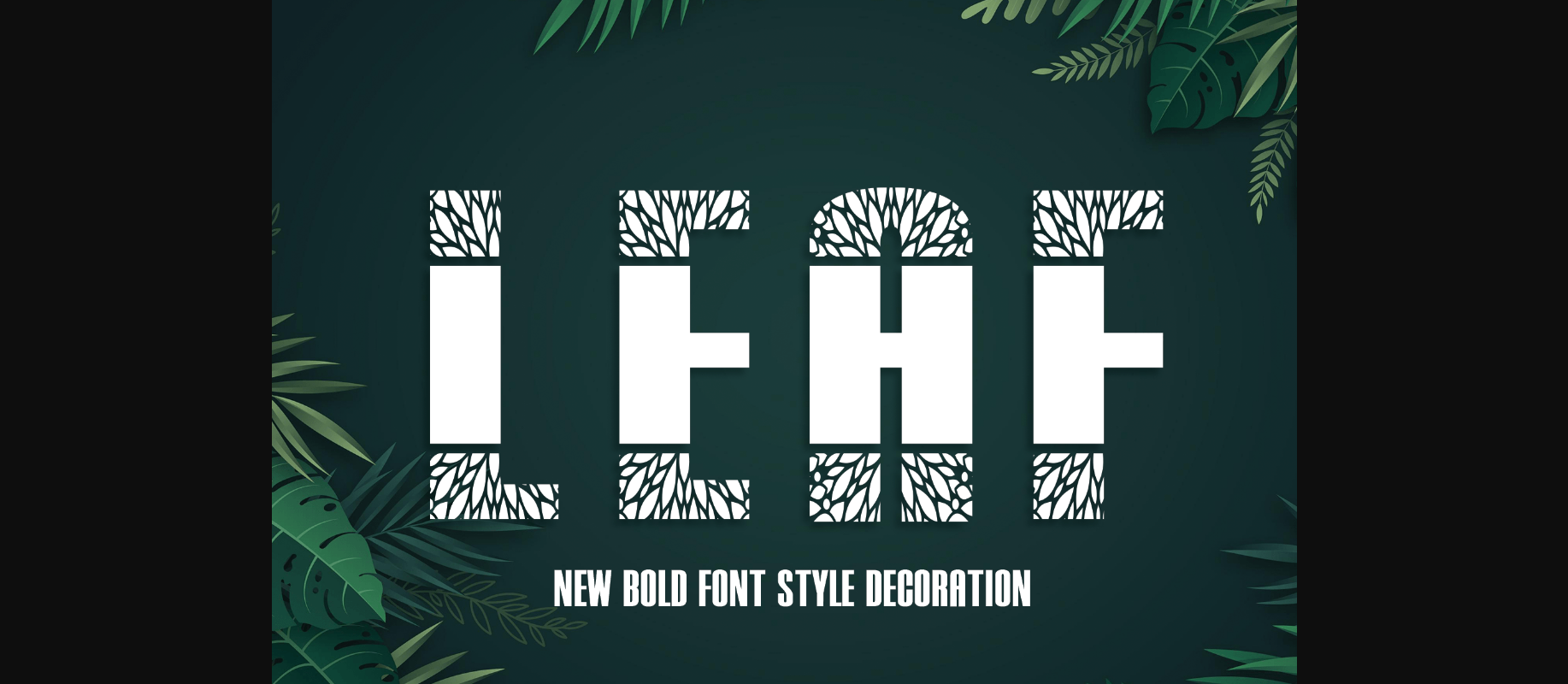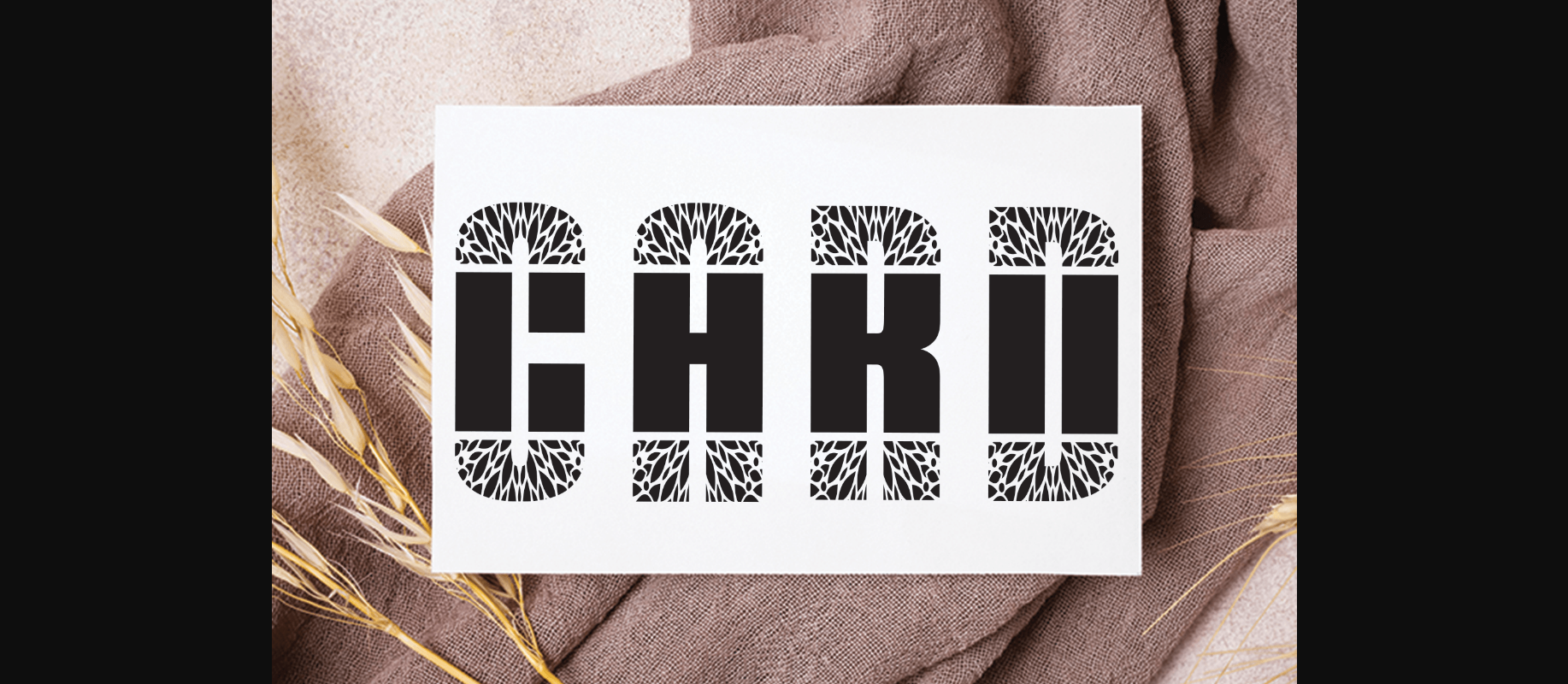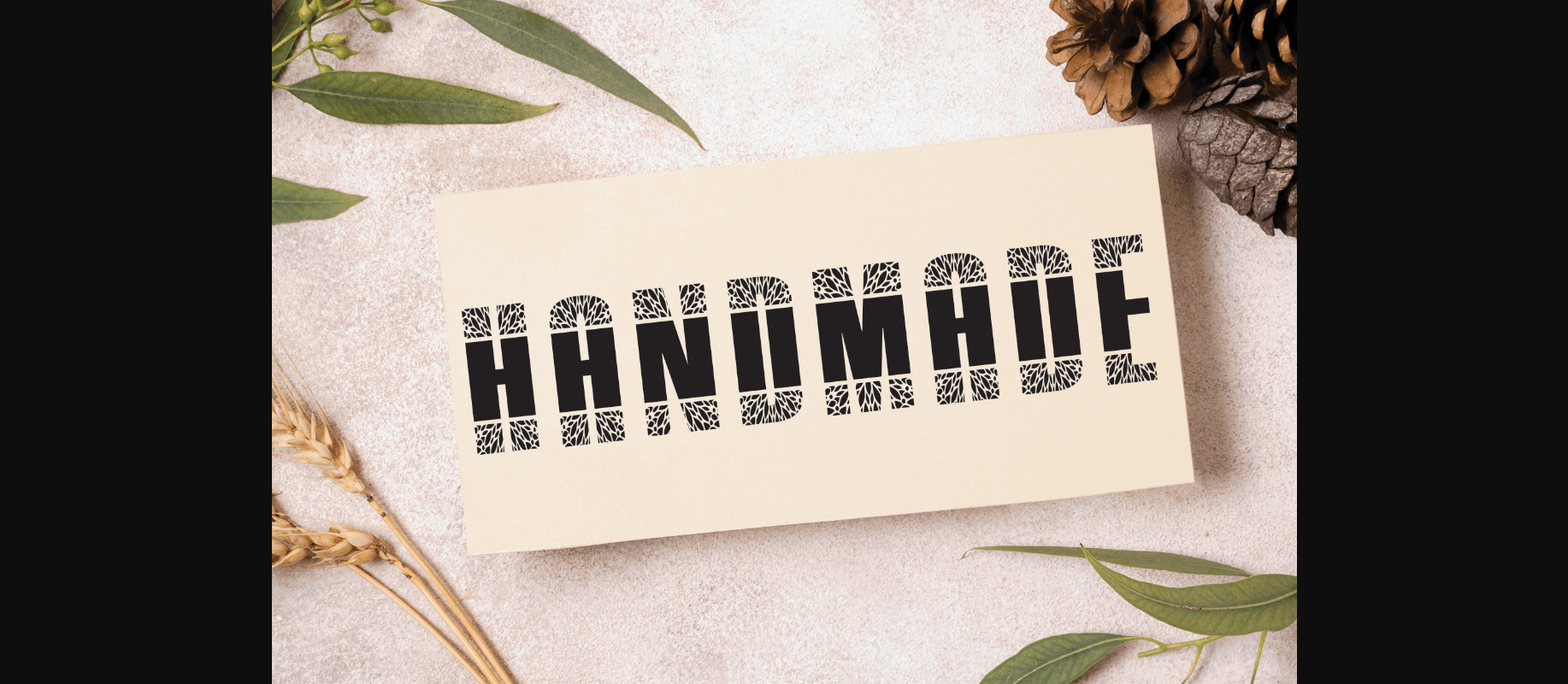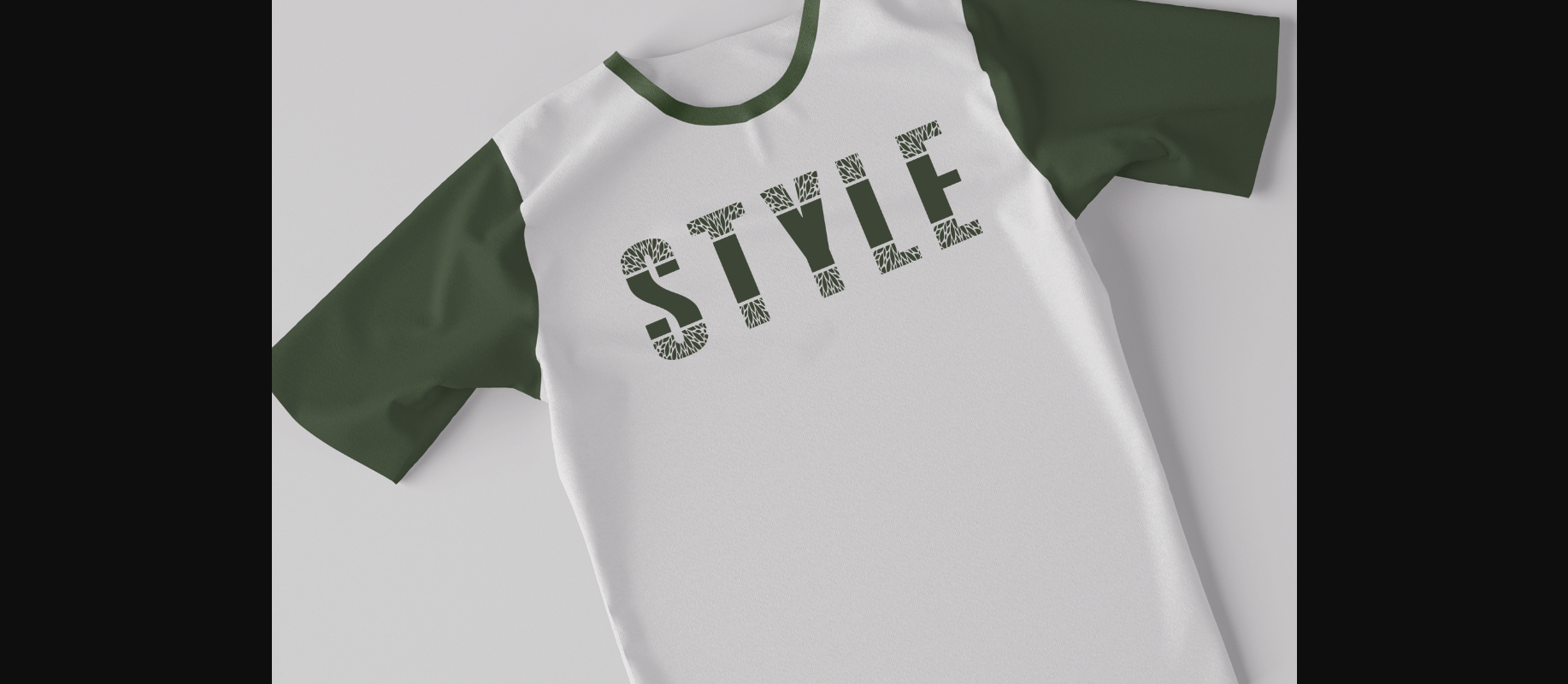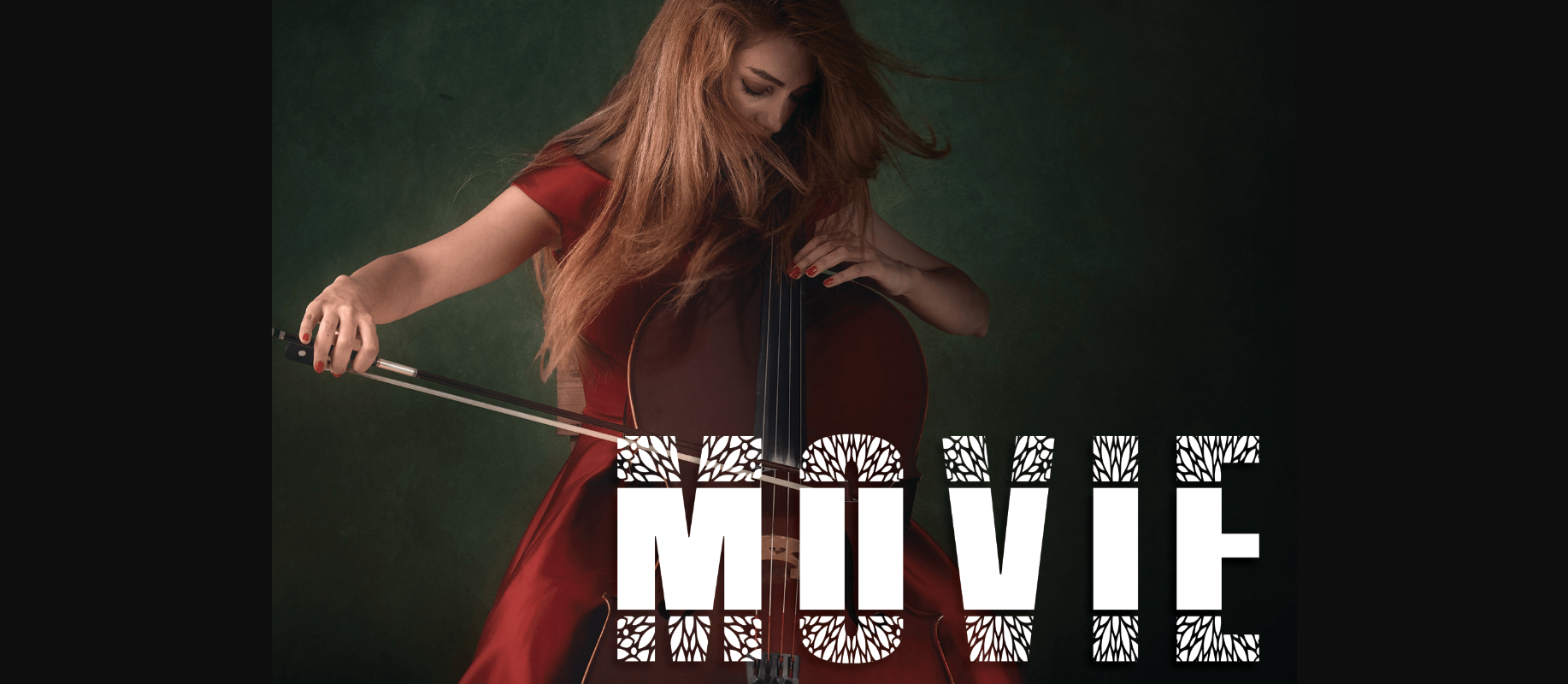
Leaf Font
About Leaf Font
Leaf is a beautiful decorative font that you can use for a variety of projects such as wall hangings, wedding invitations, social media posts, logos, advertisements, product packaging, product designs, labels, photography, watermarks, invitations, and stationery.